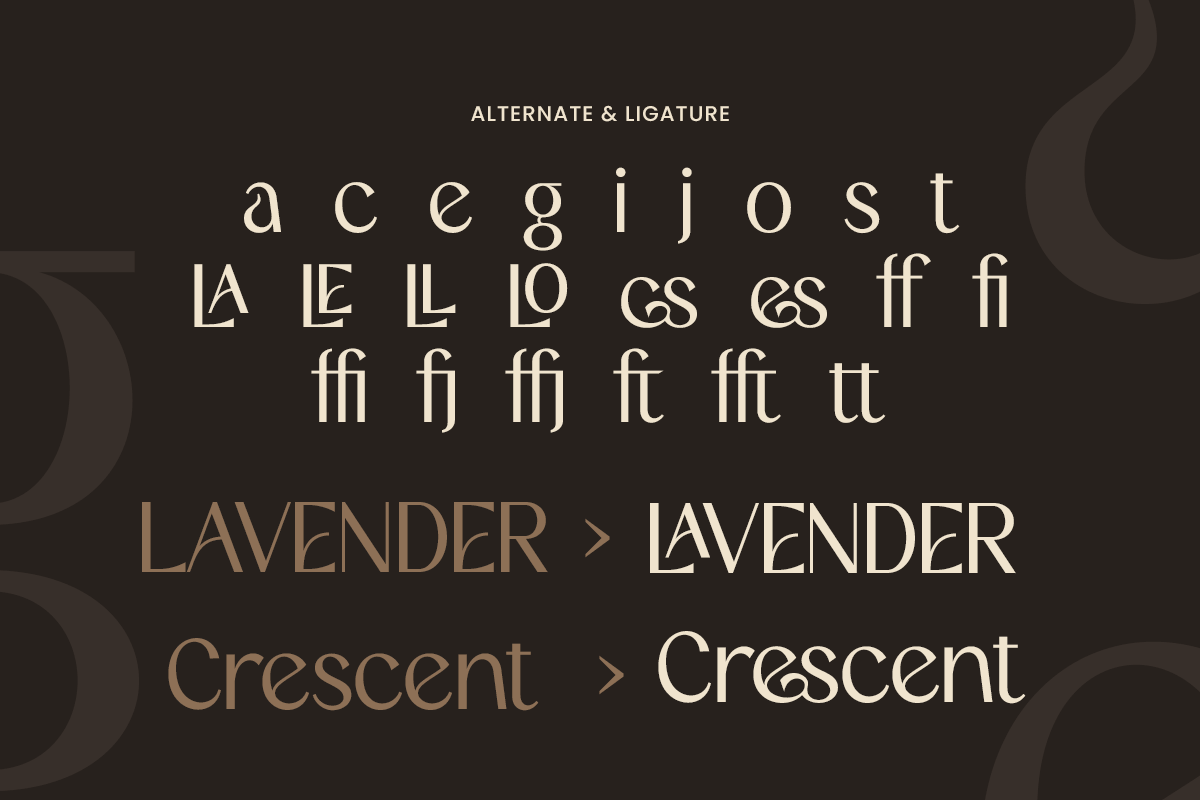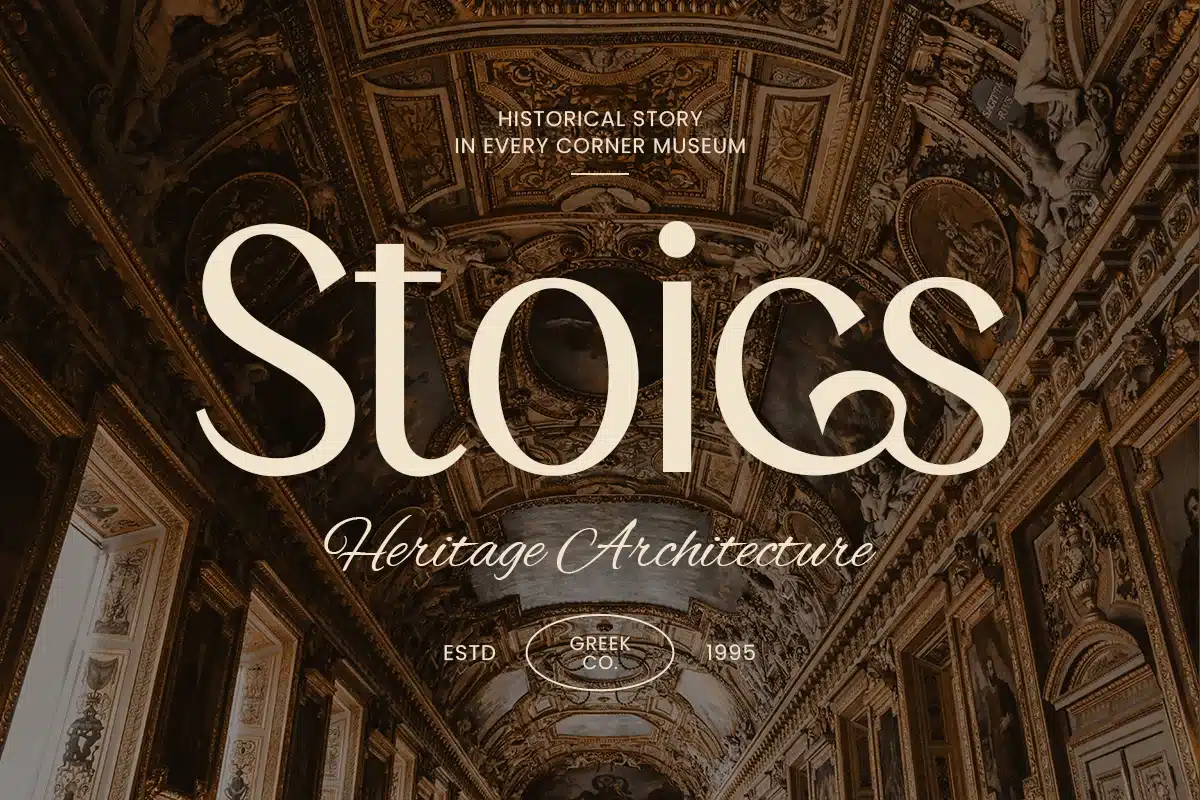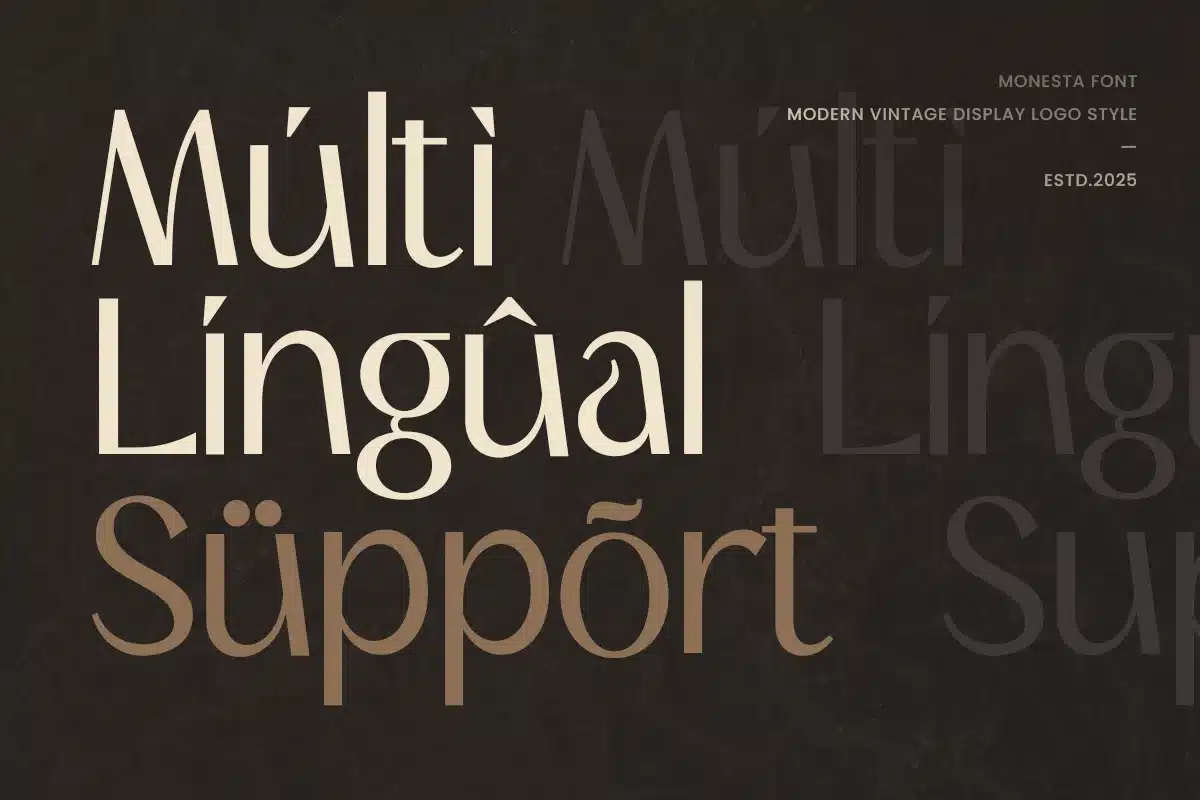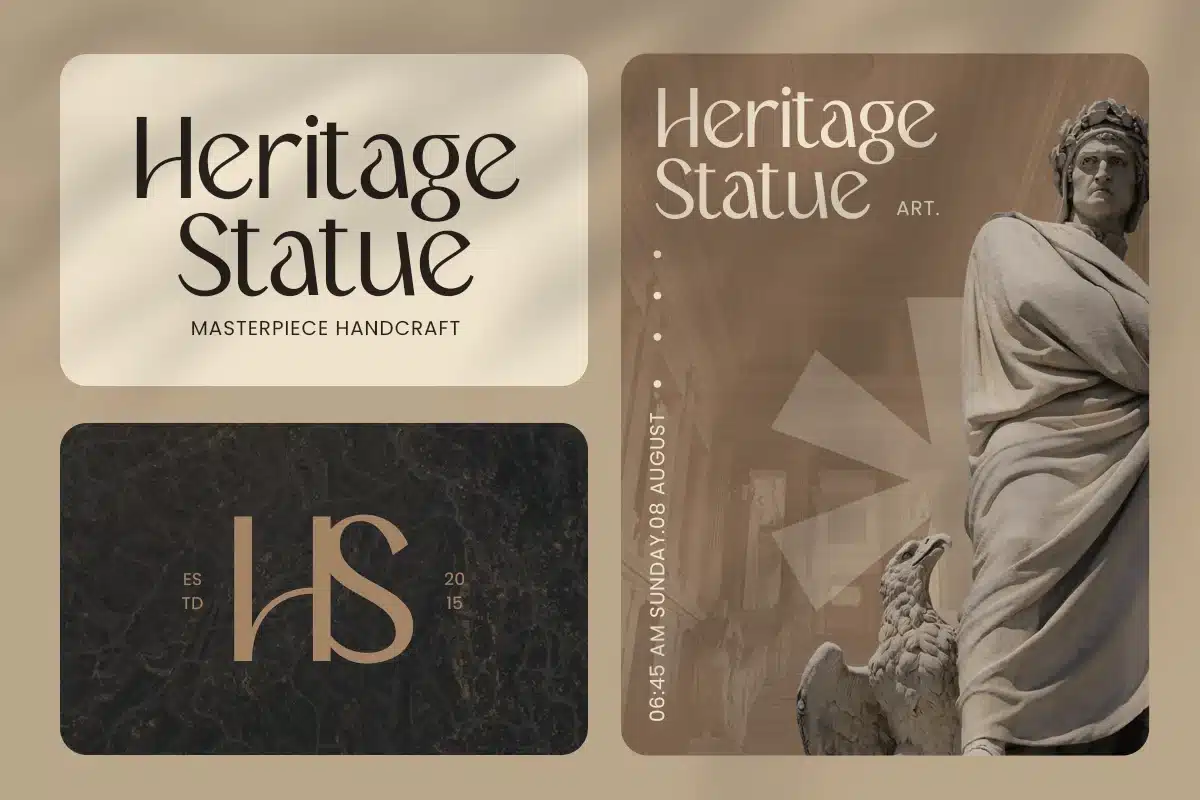
Monesta – Modern Vintage Display Logo Font
Monesta is a modern vintage display logo font designed to blend retro charm with contemporary boldness. Featuring strong letterforms and classic-inspired details, this typeface delivers a nostalgic yet fresh visual tone—perfect for brands that want to feel timeless, confident, and eye-catching.
Built for statement-driven design, Monesta works exceptionally well in logos, wordmarks, posters, packaging, labels, signage, merchandise, and social media graphics. Its display nature ensures maximum impact, while the modern-vintage balance keeps designs relevant for today’s branding needs.
Whether you’re creating a heritage-inspired logo, a retro product identity, a café or apparel brand, or bold promotional visuals, Monesta provides a powerful typographic foundation that feels expressive, stylish, and instantly memorable.
Inspiration Behind Monesta
Monesta is inspired by classic vintage signage and retro branding aesthetics, reimagined through a modern lens. The design focuses on bold presence, nostalgic character, and clean structure—bringing old-school charm into contemporary logo and display typography.
Monesta Font Features:
- Modern vintage display letterforms with bold character
- Perfect for logos, branding, posters, and headline typography
- Strong visual impact with retro-inspired personality
- OpenType features for clean, professional typesetting
- Logo design, wordmarks, and retro-inspired brand identity
- Vintage packaging, labels, and product branding
- Posters, signage, and merchandise design
- Café, bar, restaurant, and lifestyle branding
- Social media graphics, ads, and bold promotional layouts
Bring timeless character to your branding with Monesta—where modern design meets vintage display power. ✨